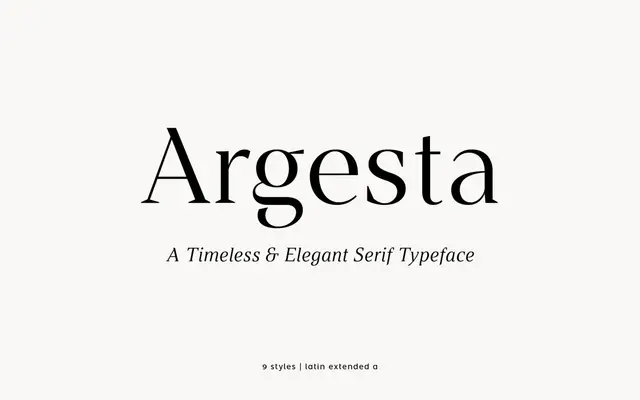
Argesta
A didone-flavoured serif system with hairline, headline, display and text optical sizes, designed for editorial and fashion-leaning work.
A high-contrast serif by atipo foundry built as an optical-size system. Argesta Hairline is drawn for very large sizes, Argesta Headline and Argesta Display sit at editorial display sizes, and Argesta Text is tuned for body copy with a Bold companion. Each cut has a matching italic, and the family includes oldstyle and lining figures, standard and discretionary ligatures, stylistic alternates, case-sensitive forms and pre-designed fractions, numerators, denominators, superscript, scientific inferiors and ordinals. Latin language coverage takes in the main European languages.
A high-contrast didone-flavoured serif drawn as an optical-size system, with a hairline cut for very large display, headline and display weights for editorial use, and a Text cut tuned for body copy.